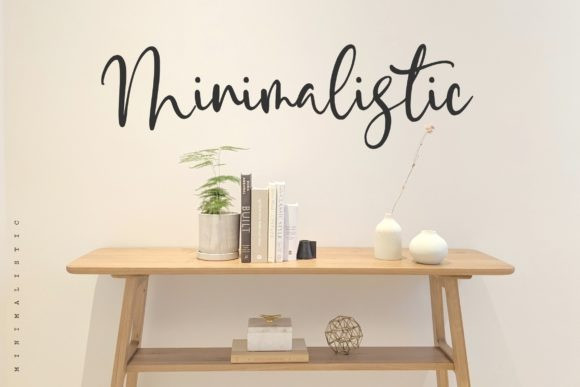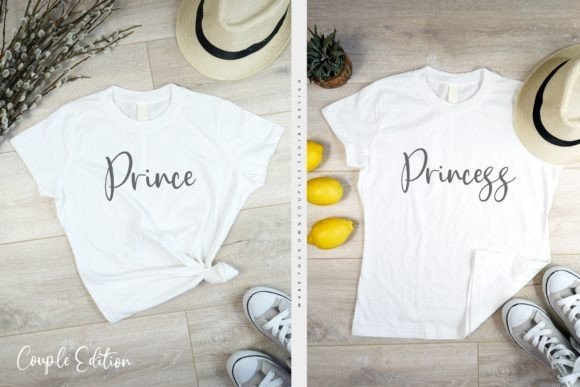
Bangga Script Font
Bangga is a beautiful handwritten font, designed to flow easily. Fall in love with its incredibly versatile style and use it to create gorgeous wedding invitations, beautiful stationary art, eye-catching social media posts, and much more!